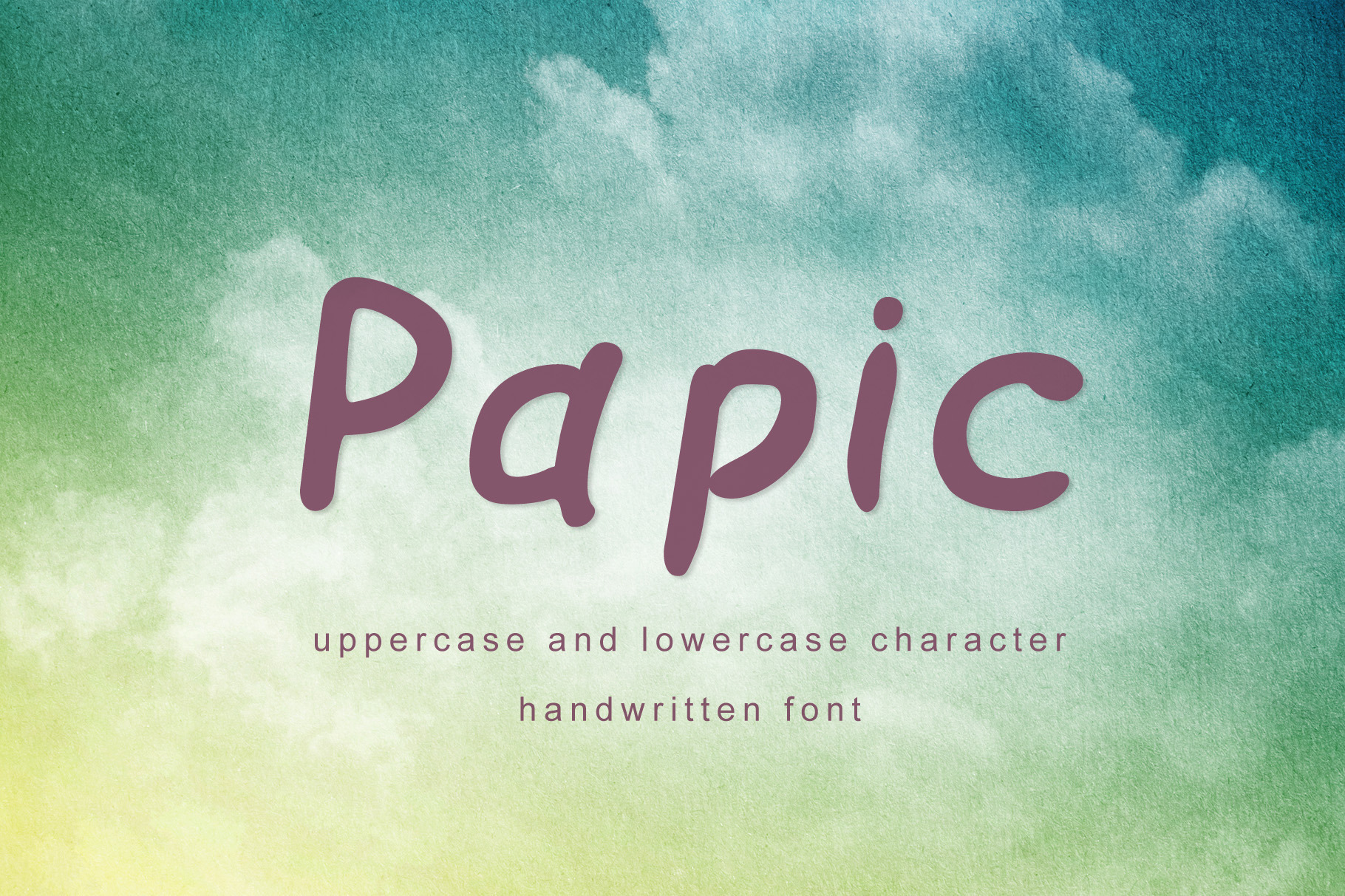
Font Papic
Papic is a hand-made font, from upper and lower case letters. Also set includes 13 bonus swashes, which will add your refinement text. This font has numbers, punctuation marks and other symbols.
With Papic font you can make beautiful typographical projects-great for social networks, products, posters, book covers. And you can just type the text on the page.